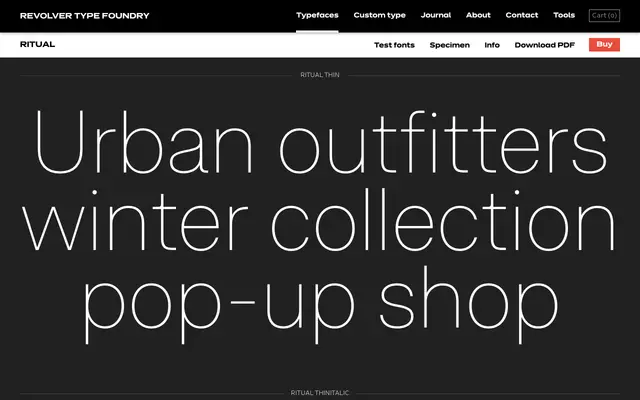
A geometric sans-serif from Revolver Type Foundry offered in nine weights, each with a matching italic.
Eighteen styles spanning nine weights from Thin to Black, each paired with an italic. The family reads as a clean, even-tempered geometric sans suited to editorial, branding and identity work across a range of weights. The full range from Thin to Black gives it flexibility across both text and display applications.
The even stroke weight, clean letterforms and geometric construction visible in the specimen point clearly to a geometric sans-serif tradition.